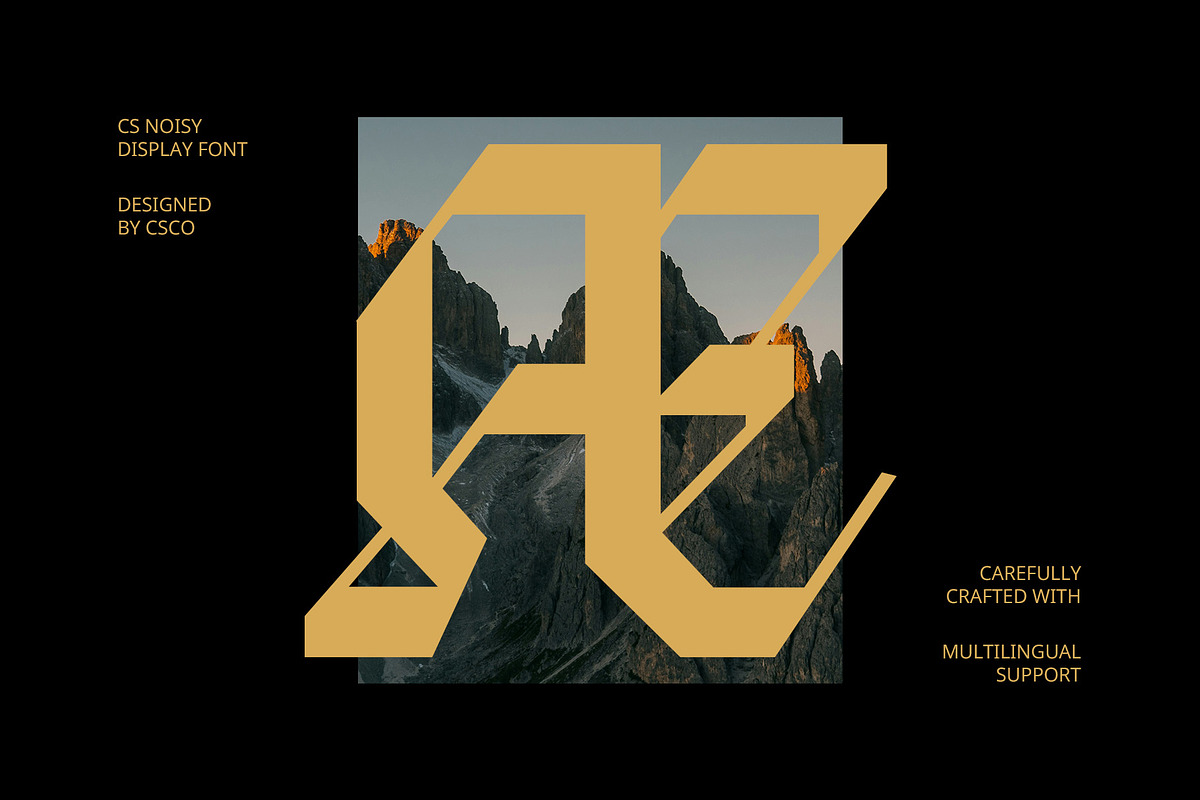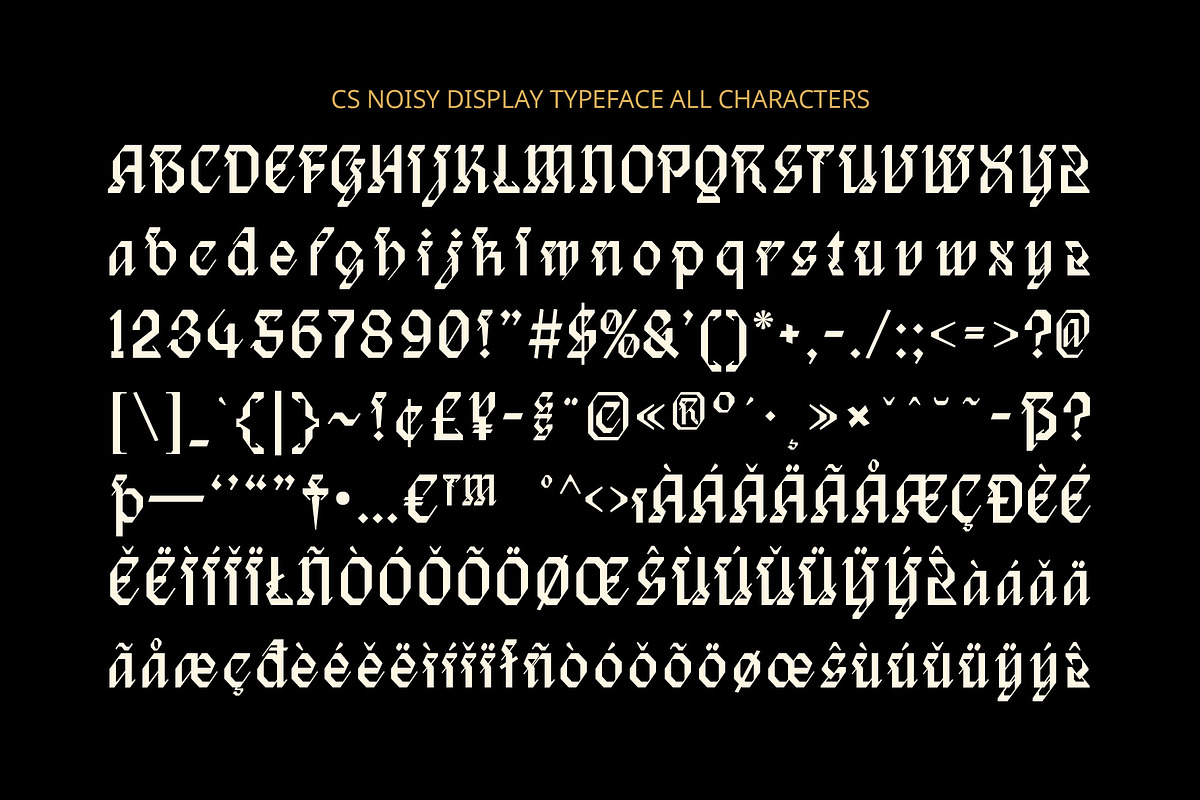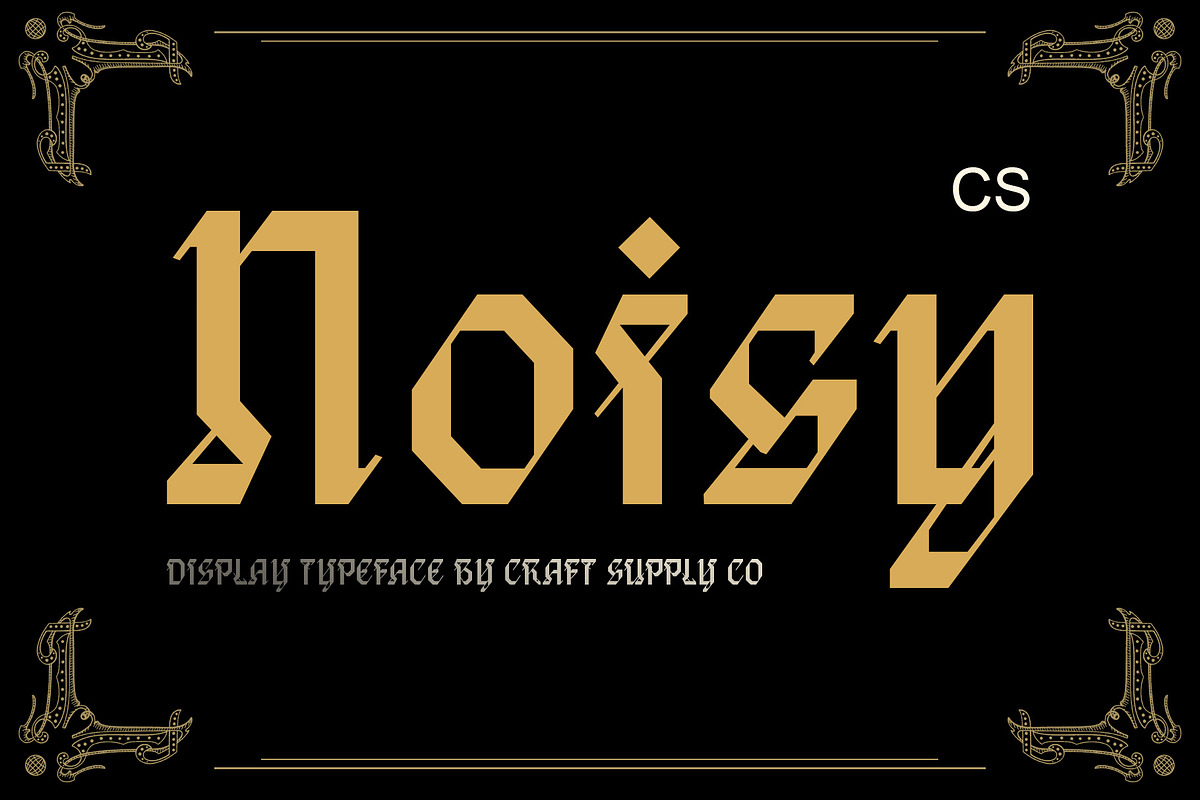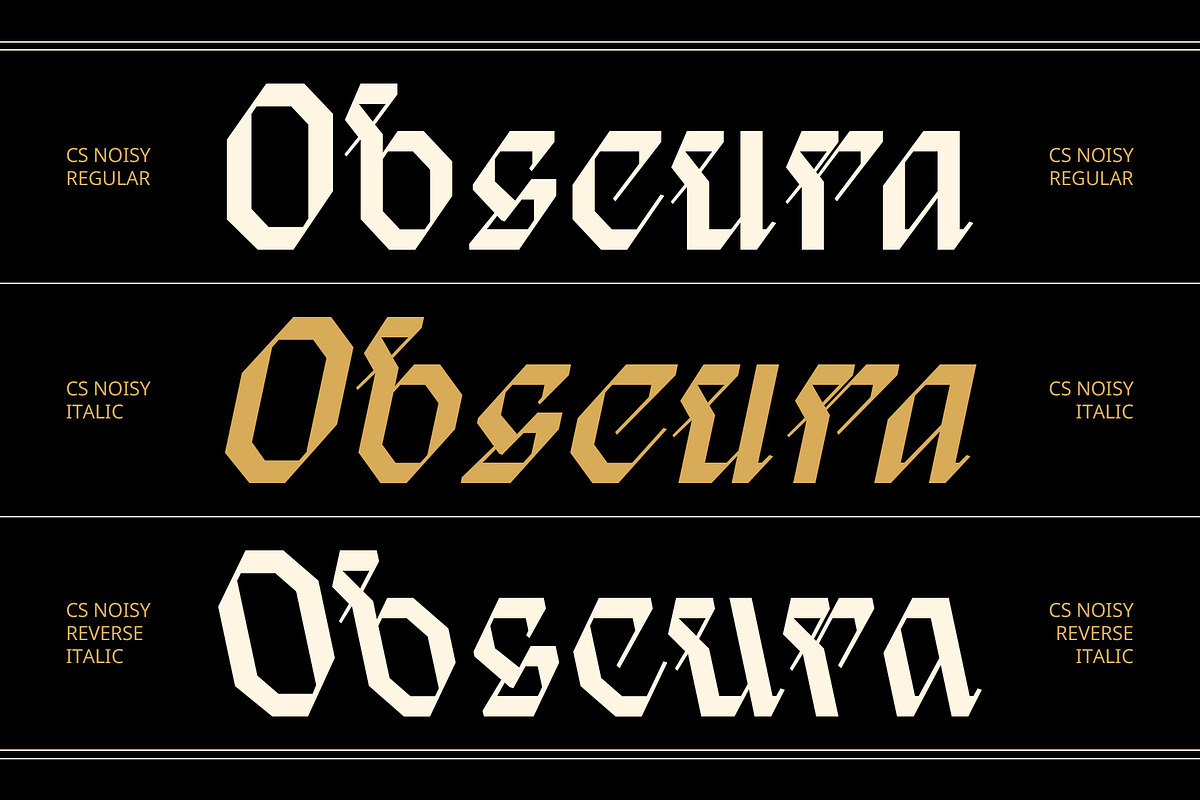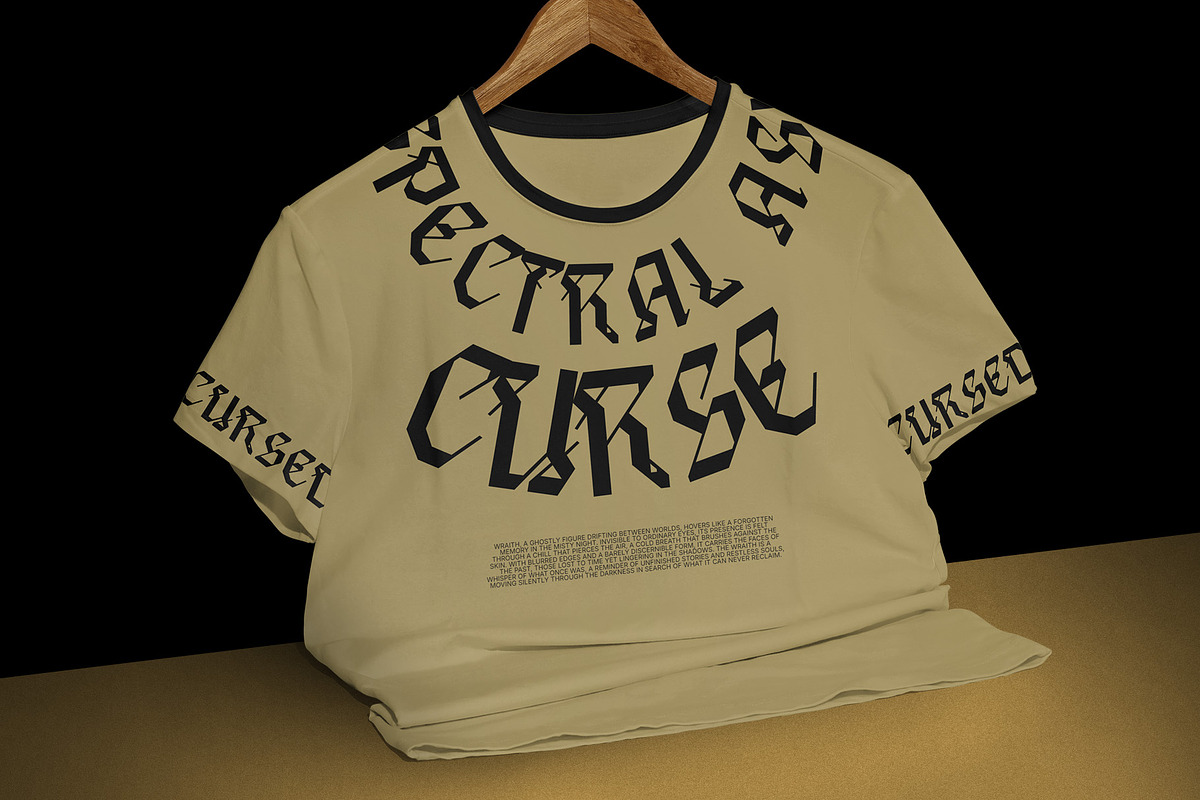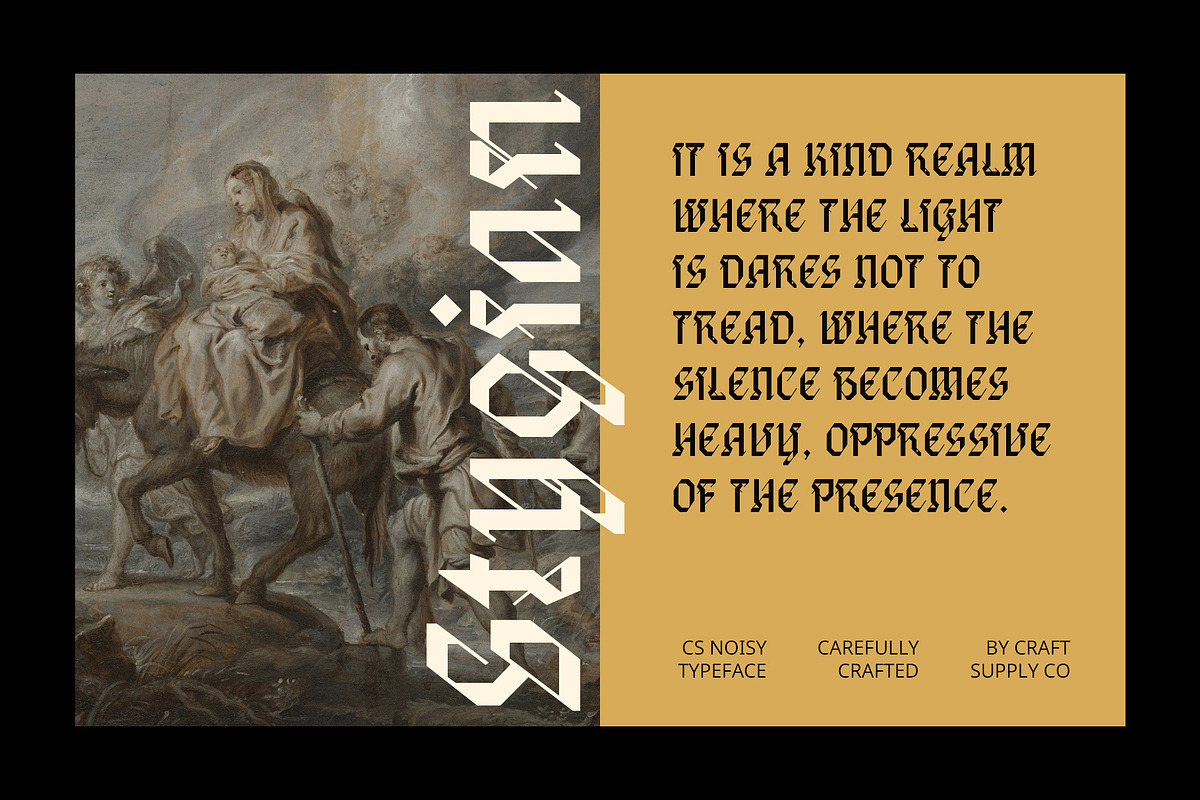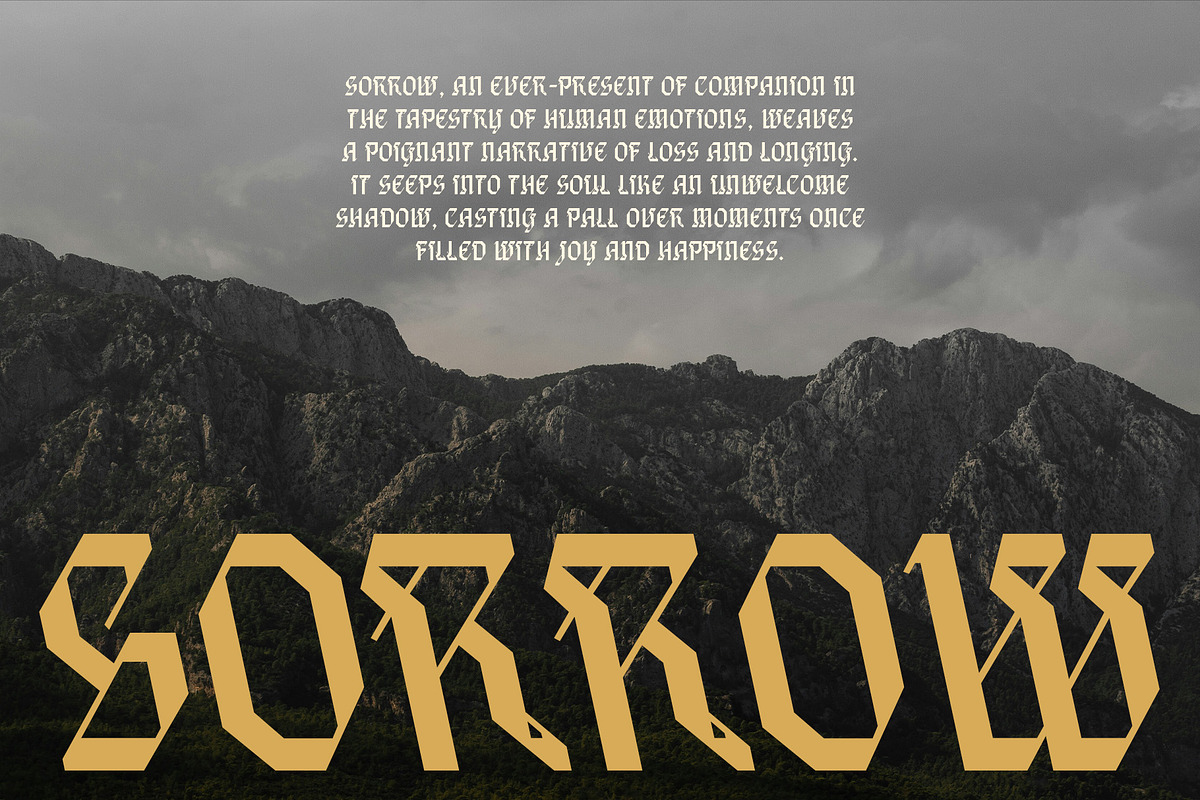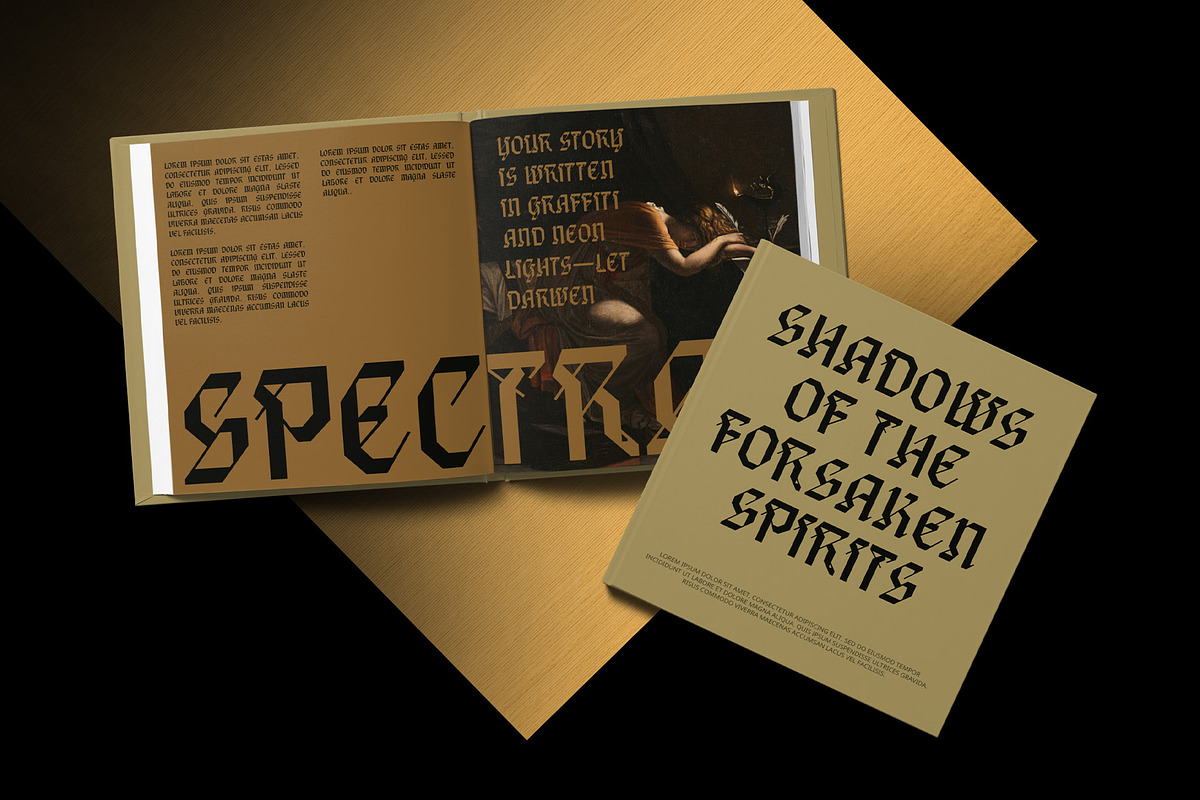
CS Noisy – Blackletter Font
CS Noisy – Blackletter Font: Heritage and Authority in Every Stroke
Traditional Blackletter Design CS Noisy is a blackletter display font that brings the intricate beauty of medieval calligraphy into modern design. Featuring sharp, pointed serifs and angular strokes, it captures the traditional aesthetics of blackletter fonts, evoking a sense of history and craftsmanship. The detailed letterforms make it ideal for projects that seek to convey a sense of heritage and timeless elegance.
Strong, Bold, and Authoritative With its bold, angular structure, CS Noisy commands attention and exudes authority. The font’s traditional blackletter design, with its sharp lines and intricate detailing, creates a strong visual impact, making it perfect for headlines, branding, and any design that needs to project power, tradition, and sophistication.
Classic, Timeless Aesthetic CS Noisy is perfect for designs aiming to create a sense of classical beauty. Whether you’re working on vintage branding, gothic-inspired logos, or medieval-themed projects, this font’s historical charm ensures your designs stand out with an air of elegance and authority. Its timeless appeal makes it versatile for both contemporary and historical projects.
- CS Noisy Regular
- CS Noisy Italic
- CS Noisy Reverse Italic